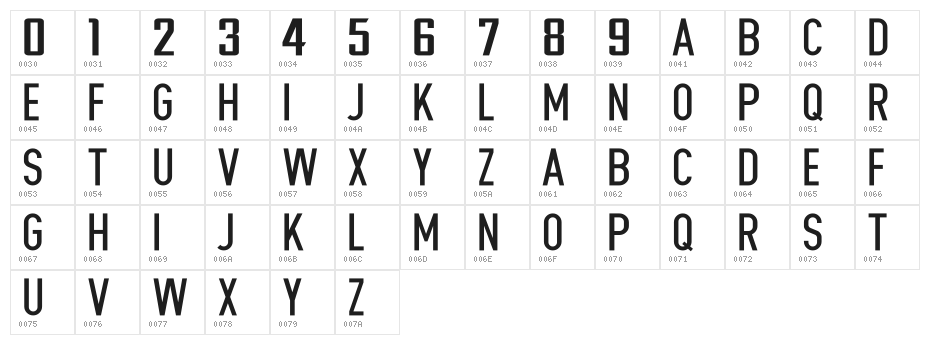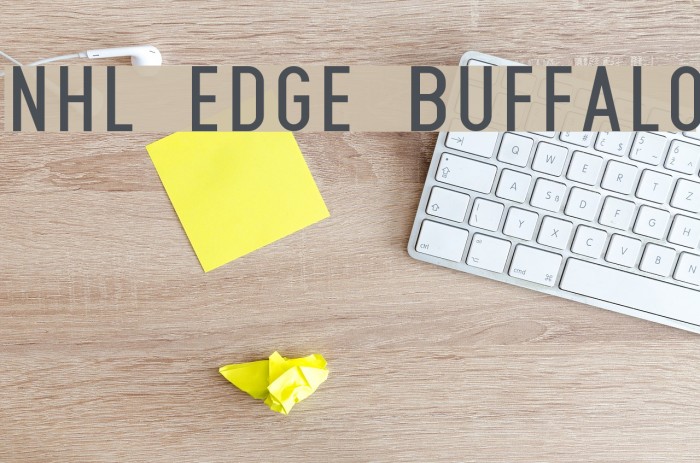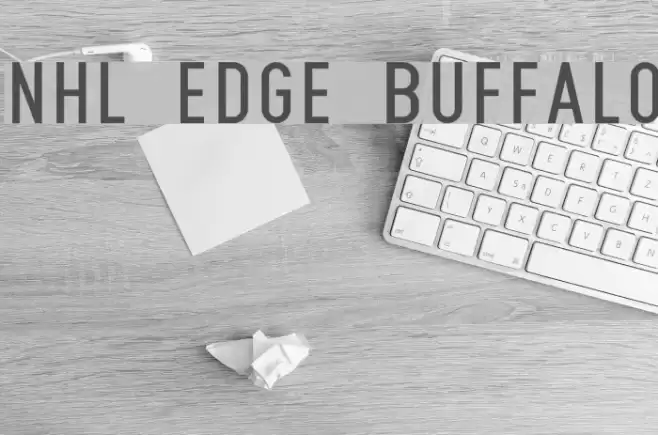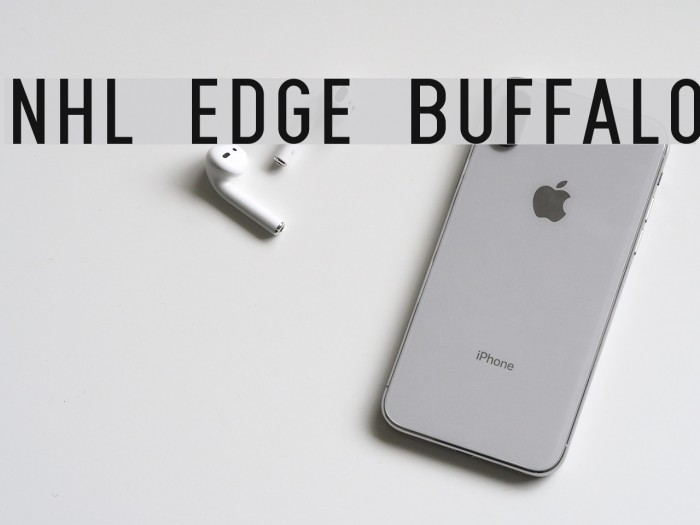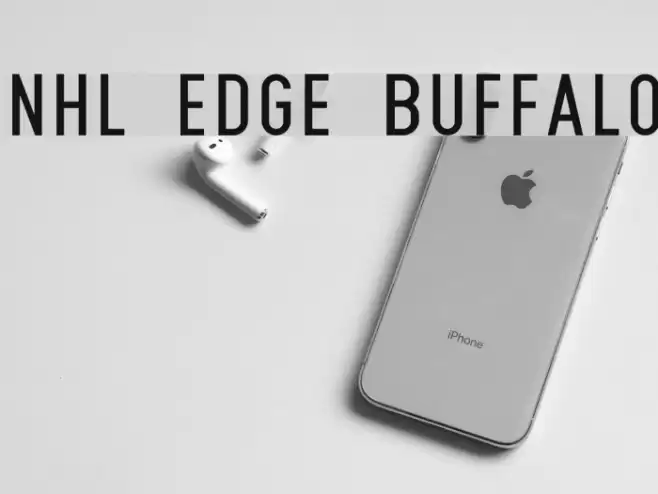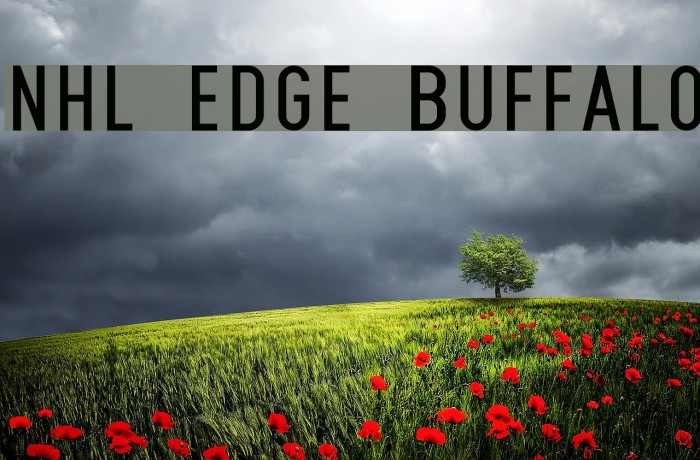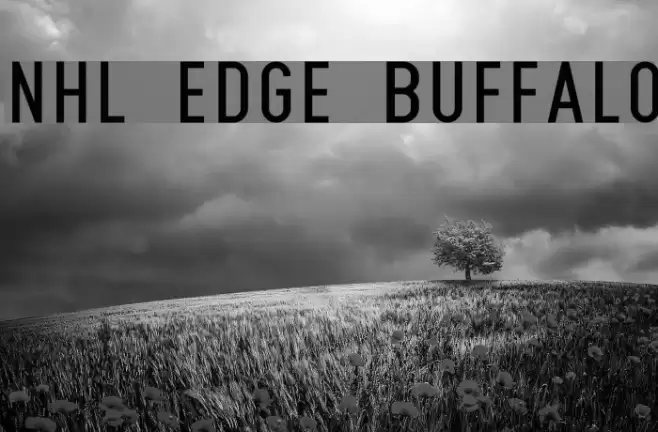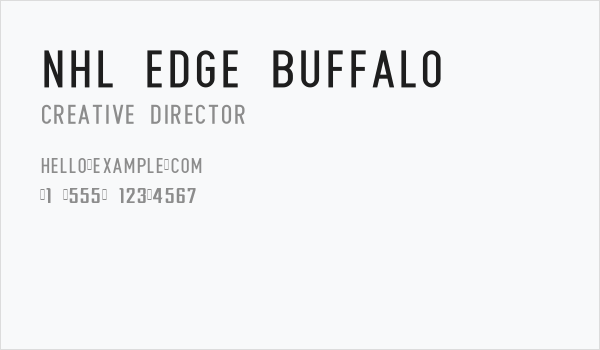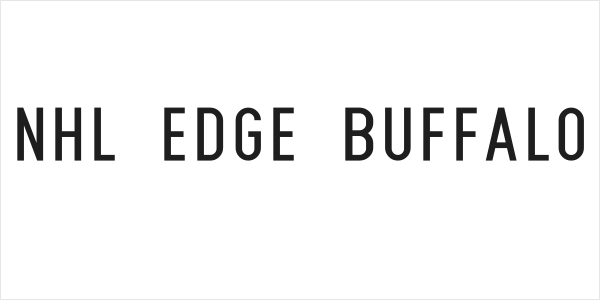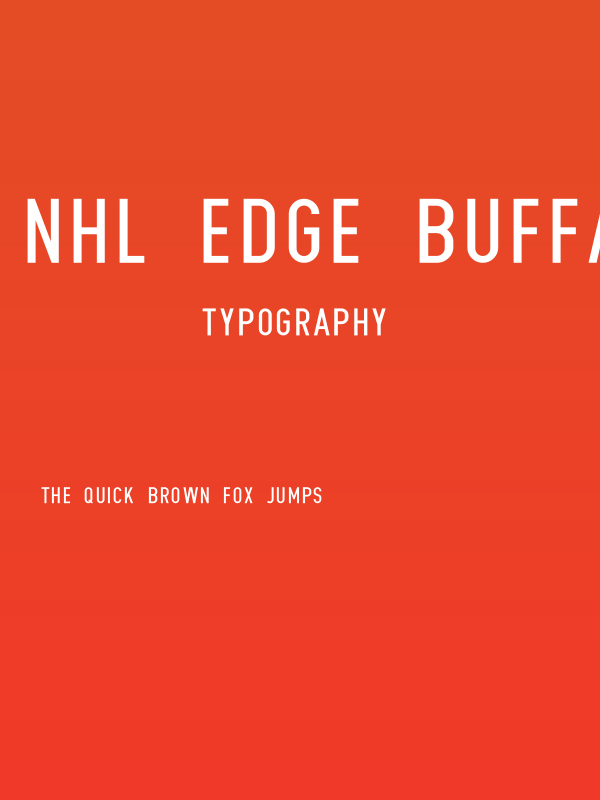
NHL Edge Buffalo Font
NHL Edge Buffalo Description
This font exhibits a bold and modern aesthetic with clean, straight lines and uniform stroke widths. The uppercase letters are tall and narrow, giving a sense of height and elegance, while the lowercase letters maintain a consistent style that complements the uppercase. The numerals are distinct and easy to read, featuring a geometric design that aligns with the overall modern feel. The special characters are designed to match the font's sleek and contemporary look, making it versatile for various applications.